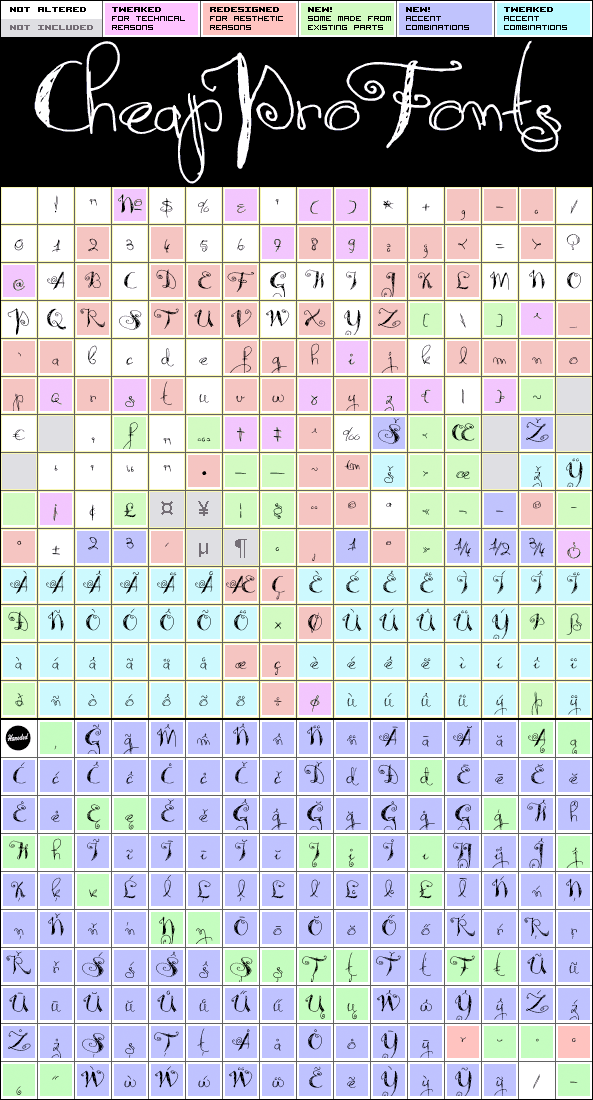
Syphon Spritz Pro
Syphon Spritz Pro by David Kerkhoff
375 glyphs!
(185 in original)
202 class kernpairs
= 3120 kerning pairs
(none in original)
A free flowing and loose handwritten style, with the occasional double lines - and with quite elaborate and decorative initials. Feminine, but sloppy - an interesting combination. I have regularized the stroke thicknesses and modified a couple of the letterforms to make them less ambiguous. Some kerning and spacing completes the workover, together with our extensive language support.
Syphon Spritz Pro is a professionally reworked font that contains an extended character set for setting text in 65 languages requiring more than the basic A-Z!